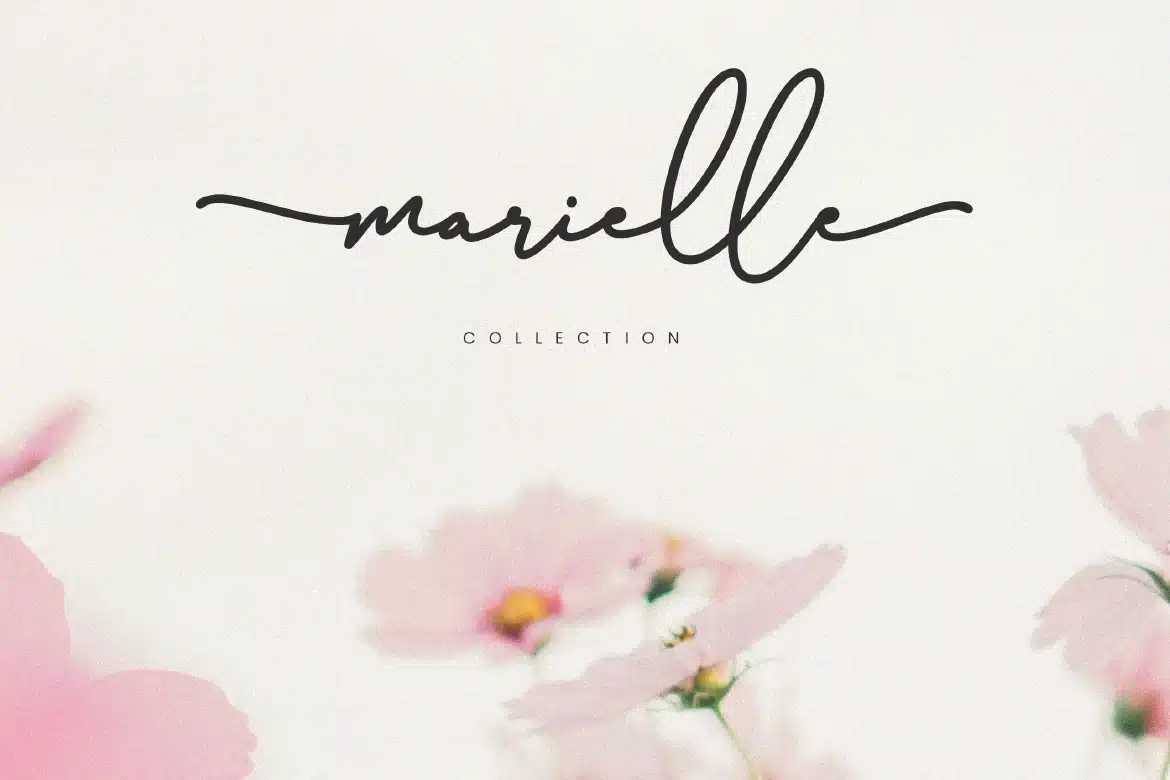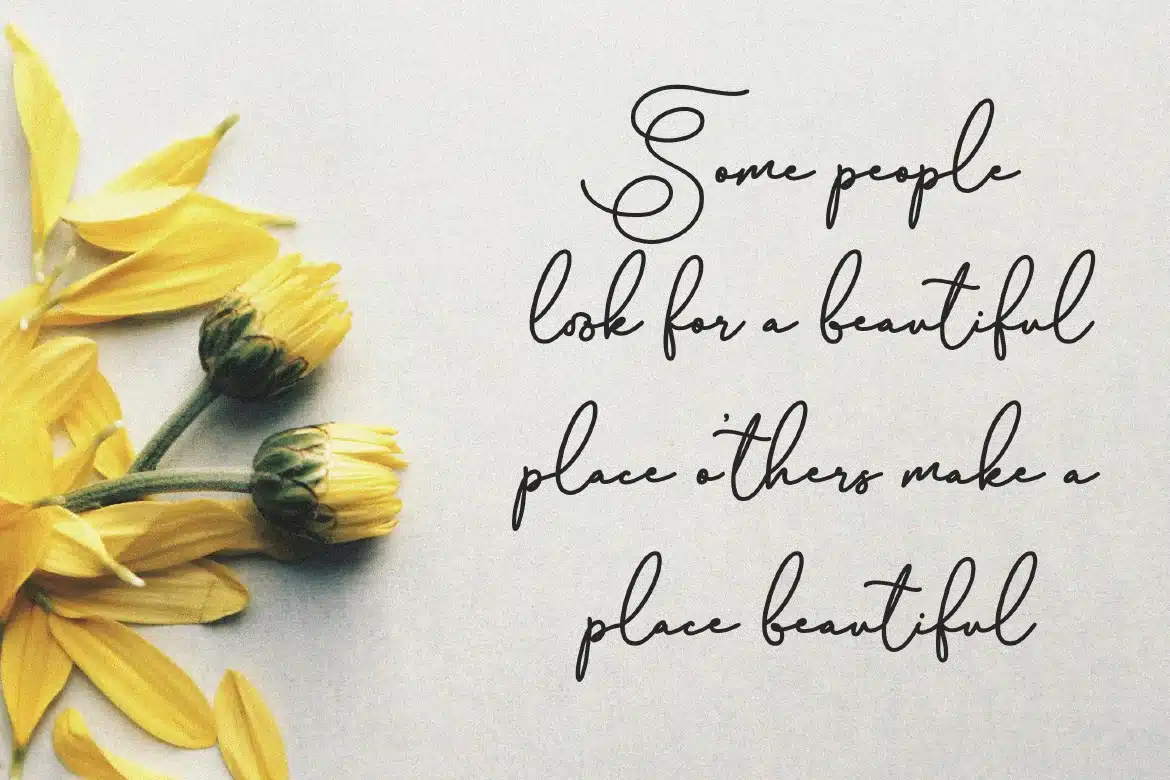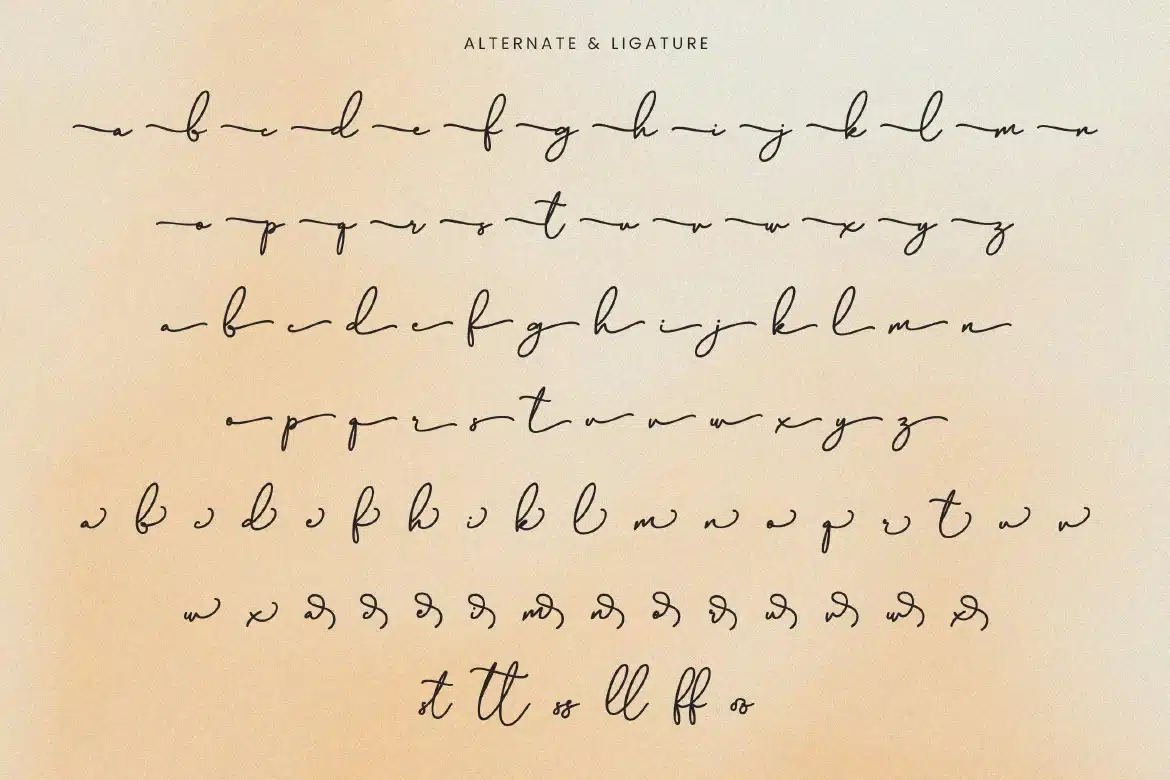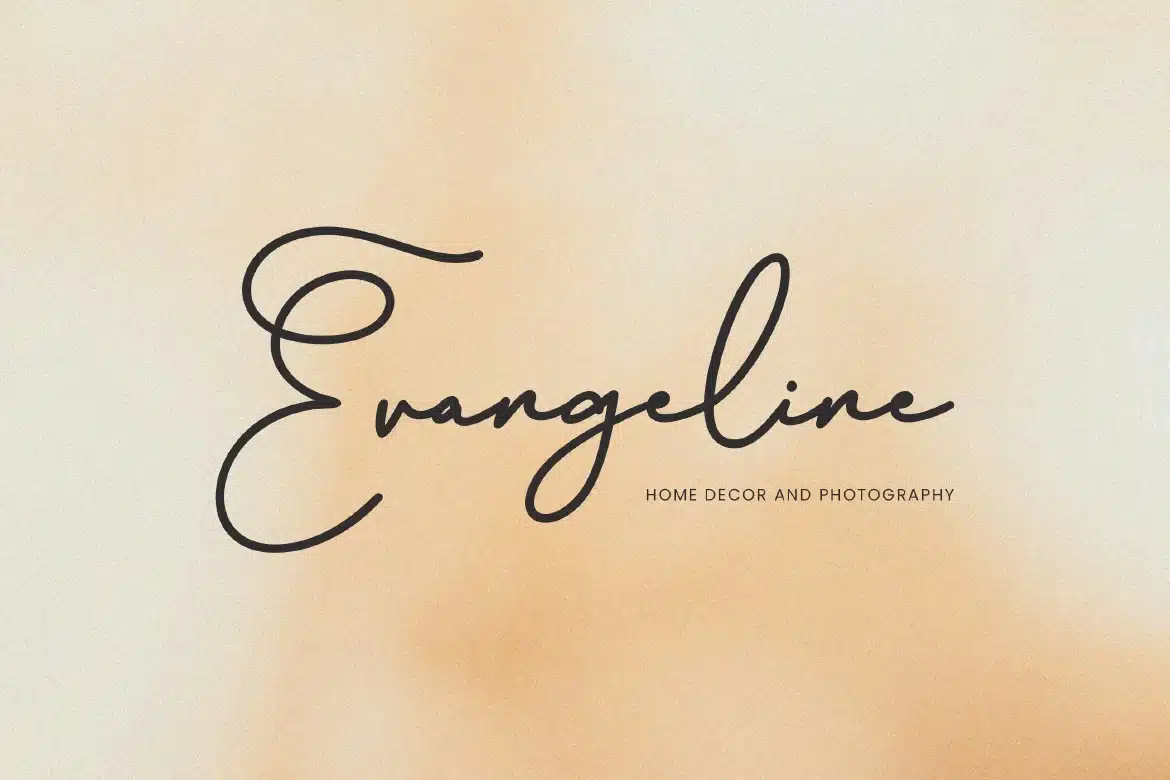
Modern Elegant Script Font – Malissa
Modern Elegant Script Font - Malissa
Malissa is a graceful modern elegant script typeface designed to bring a soft, sophisticated, and feminine touch to your designs. With its flowing strokes, smooth curves, and delicate details, Malissa captures the beauty of contemporary calligraphy while maintaining excellent readability. Its refined and stylish character makes it perfect for creating luxurious visuals that feel both personal and polished. Whether for branding, invitations, or social media, Malissa adds a timeless elegance to every composition.
Who Should Use Malissa?
Malissa is perfect for designers, creatives, and brands looking to express elegance, romance, and modern sophistication. It’s especially ideal for projects that require a handwritten style with a luxurious and feminine feel.
Wedding invitations and stationery
Beauty and fashion branding
Signature logos and personal branding
Social media content
Packaging and product labels
Elegant quotes and typography
Editorial and magazine design
Romantic and feminine projects